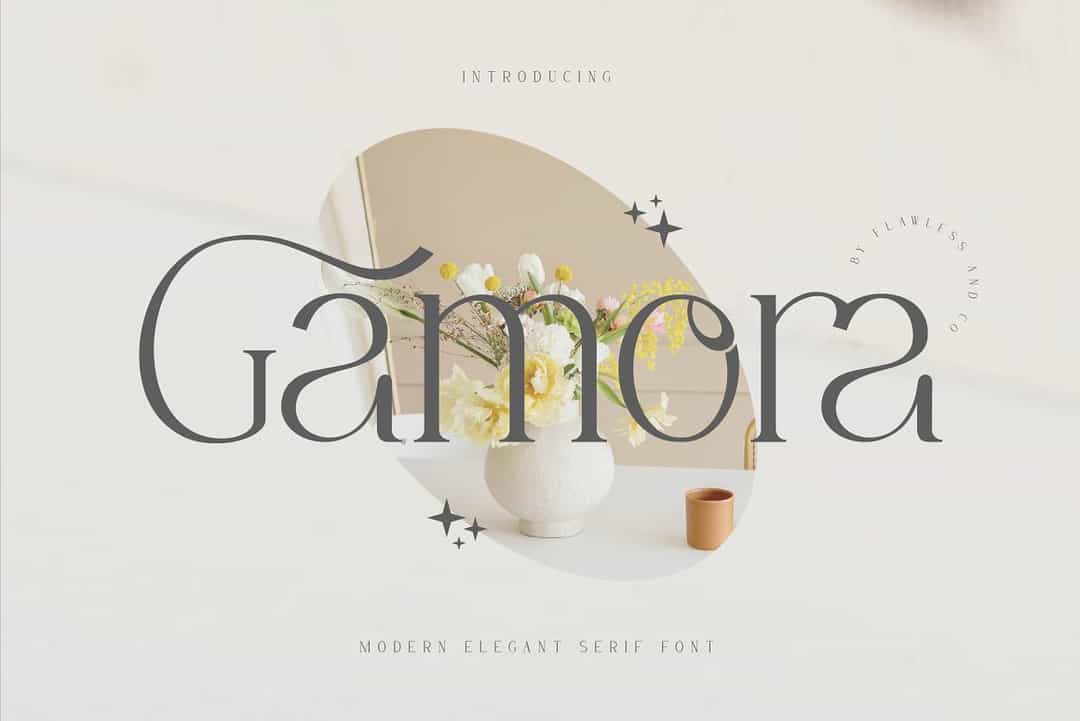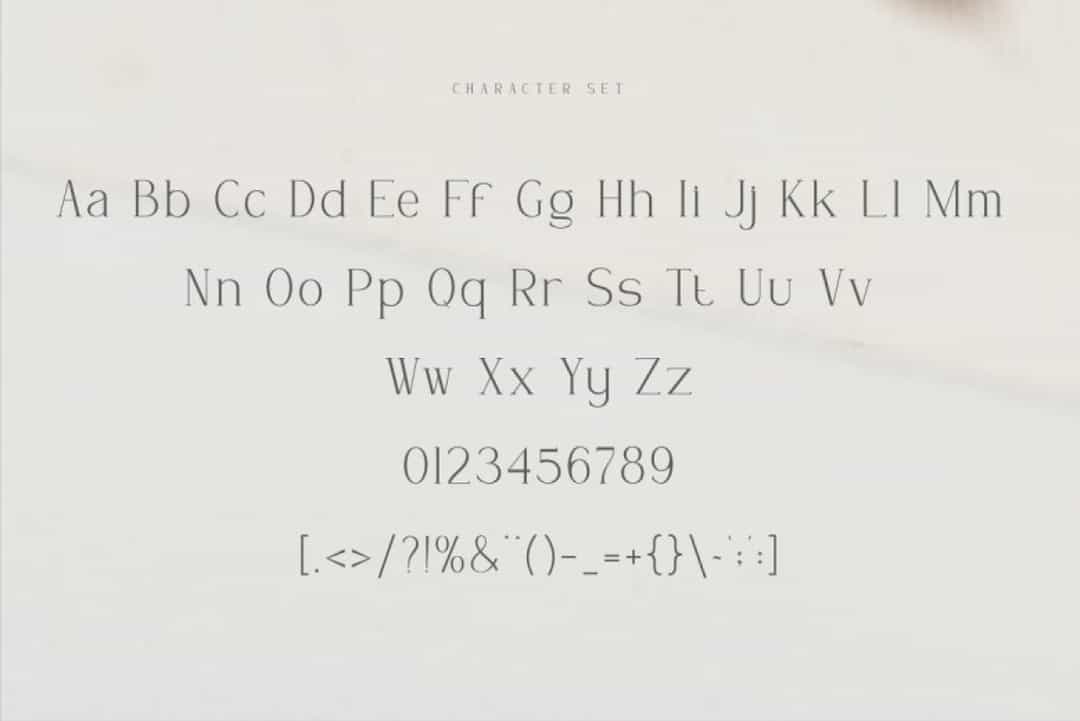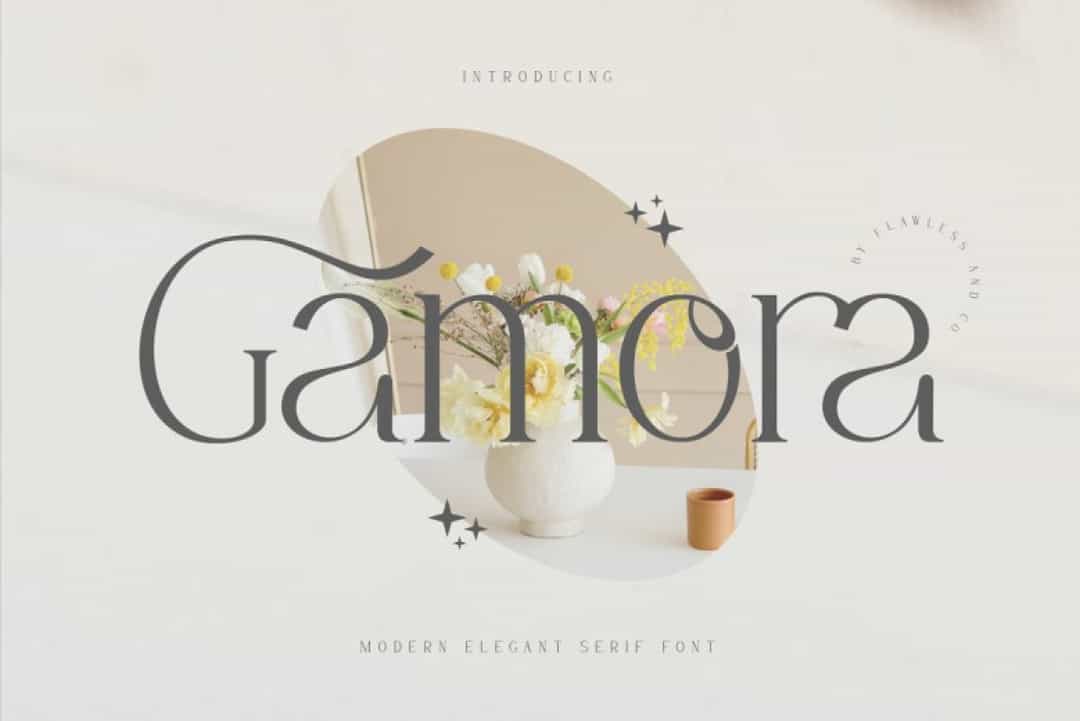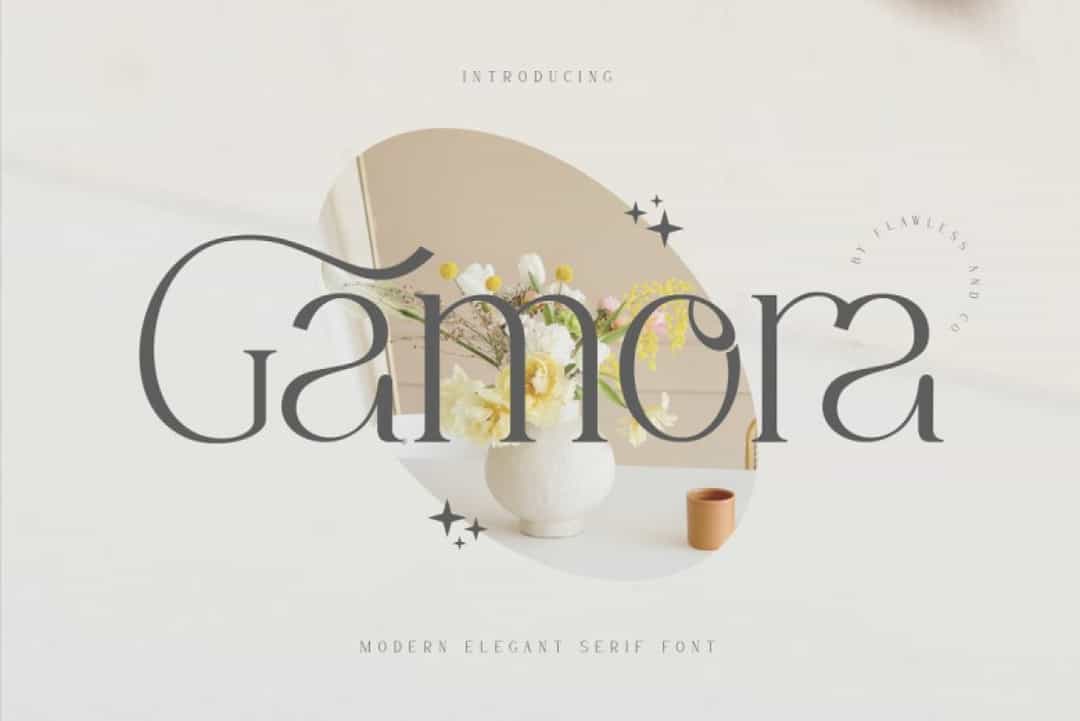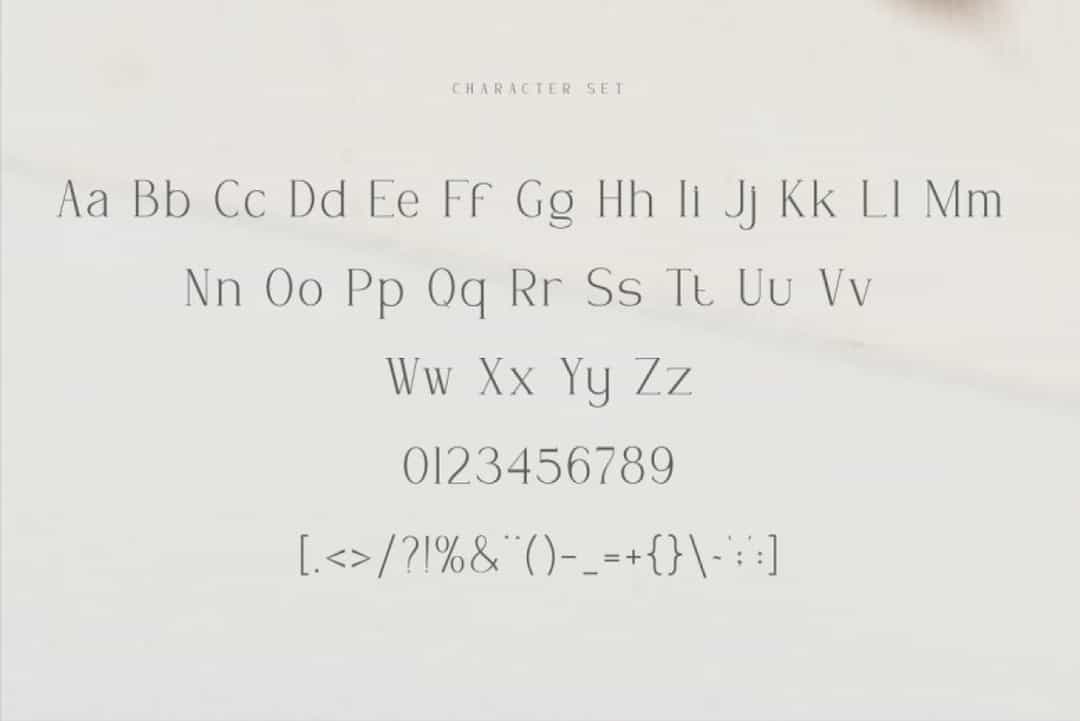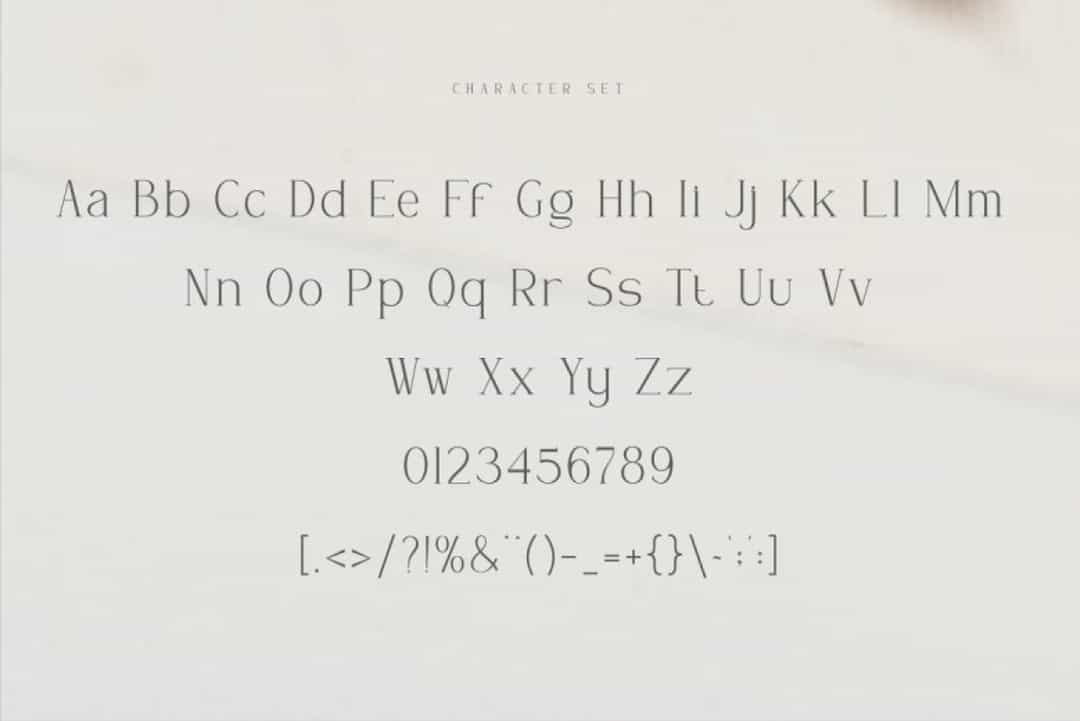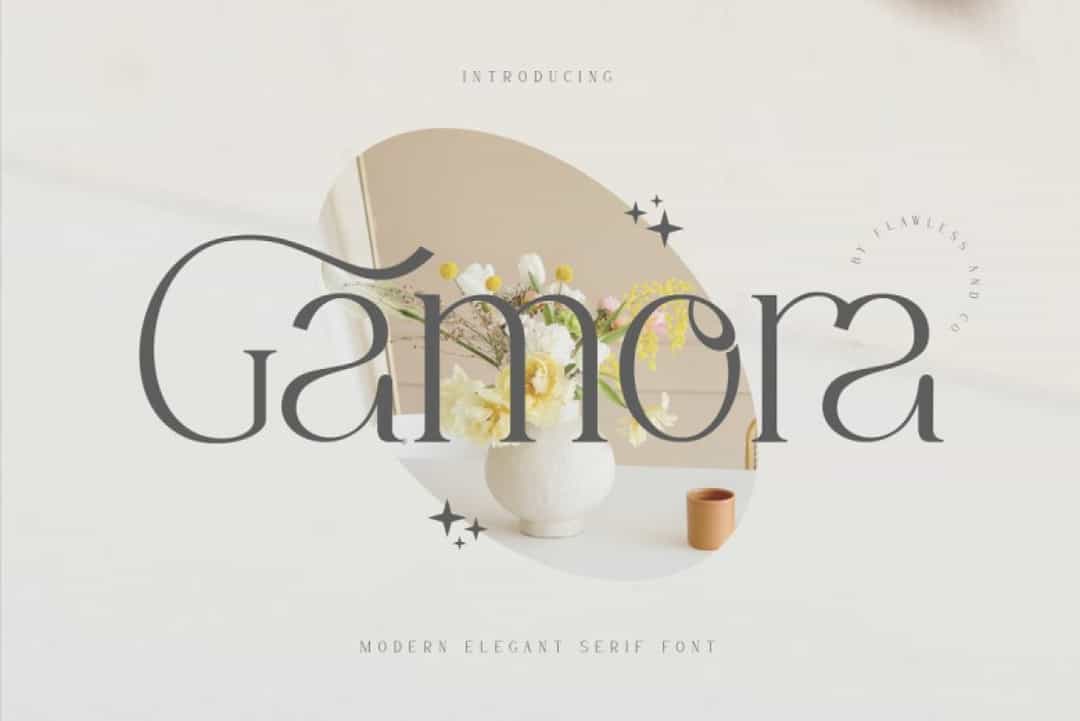
“Gamora” – A Modern Elegant Serif Font. Experience a perfect balance between contemporary and elegant with “Gamora,” an eye-catching serif font featuring refined characters as well as numerous ligatures and alternatives that extend its usefulness for design projects.